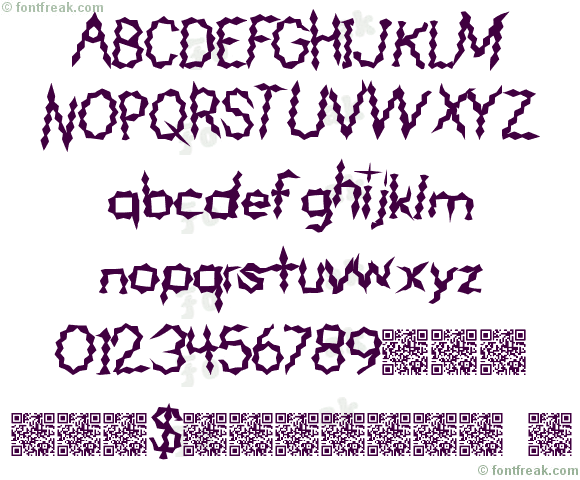
LuckyDiamonds
About LuckyDiamonds
LuckyDiamonds is a distinctive display font designed by XEROGRAPHER FONTS, released in 2013 as freeware. This font showcases a unique style that blends whimsy with an edgy aesthetic, making it perfect for a variety of creative projects. Characterized by its irregular, jagged strokes and dynamic forms, LuckyDiamonds exudes an energetic vibe that captivates the viewer's attention. The varying stroke weights create an intriguing contrast, while the spacious letter spacing allows for readability despite its unconventional design.
Ideal use cases for the LuckyDiamonds font include eye-catching wedding invitations that aim to break away from traditional elegance, vibrant movie posters that require a bold title to grab attention, and quirky restaurant menus that want to convey a fun, relaxed atmosphere. Additionally, it can enhance promotional materials for events like music festivals, where an artistic flair is essential. The target audience for this font encompasses graphic designers seeking to add a playful touch to their projects, small business owners looking to differentiate their branding, and content creators who want to inject personality into their online presence.
What sets LuckyDiamonds apart is its ability to evoke a sense of creativity and spontaneity. This font is more than just a typeface; it serves as a visual statement that encourages exploration and imagination. With its free download availability, designers and creators can easily incorporate LuckyDiamonds into their work, ensuring that their projects stand out in a crowded market. Whether you’re crafting a whimsical invitation or a bold promotional piece, the LuckyDiamonds font free download offers a unique opportunity to make your designs unforgettable.